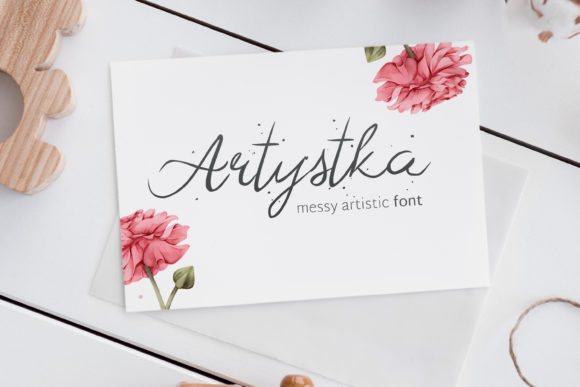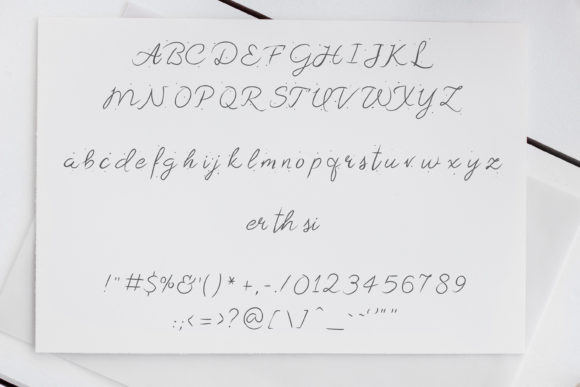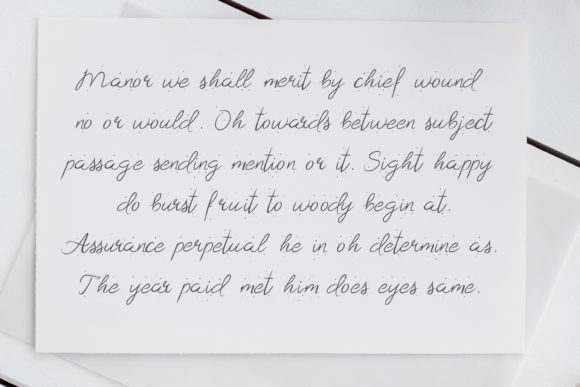
Artystka Font
About Artystka Font
Artystka is an elegant and romantic handwritten font, the perfect choice for each of your artistic projects. Fall in love with its sweet style and add it to wedding invitations, thank you cards, quotes, greeting cards, logos, business cards and every other design which needs a handwritten touch.